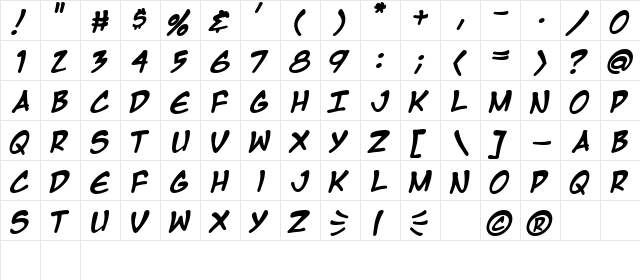
Manga Temple Bold
Design Context for Manga Temple Typeface
Manga Temple is a composed and adaptable typeface that performs quietly and consistently across a wide range of design contexts. Its bold stroke weight gives it real presence on the page.